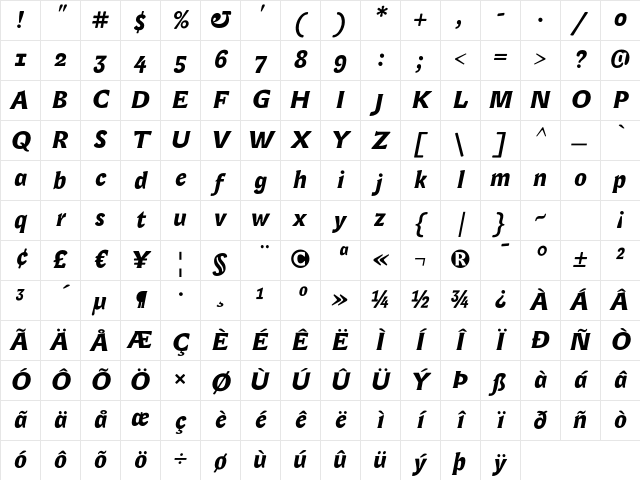
LexiconGothic BoldItalic
Design Context for LexiconGothic
LexiconGothic takes a clean, functional approach - its unadorned letterforms prioritise legibility and work reliably across screen and print environments. The slanted form adds forward momentum and visual energy. Its bold stroke weight gives it real presence on the page.
Font Pairing: Use LexiconGothic for headlines alongside a lighter-weight sans or serif for body copy to establish clear visual hierarchy.
Pro Tip: Use LexiconGothic for UI labels, navigation, and short-form body copy where clean legibility is the priority.